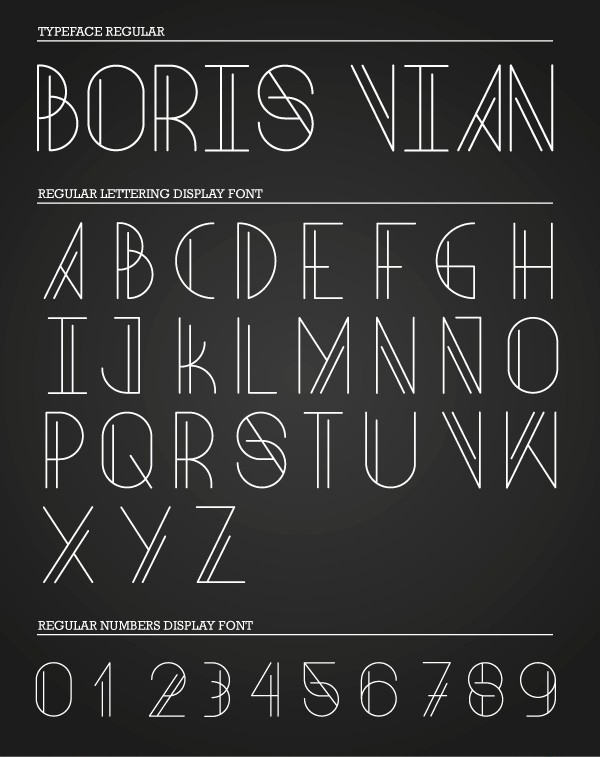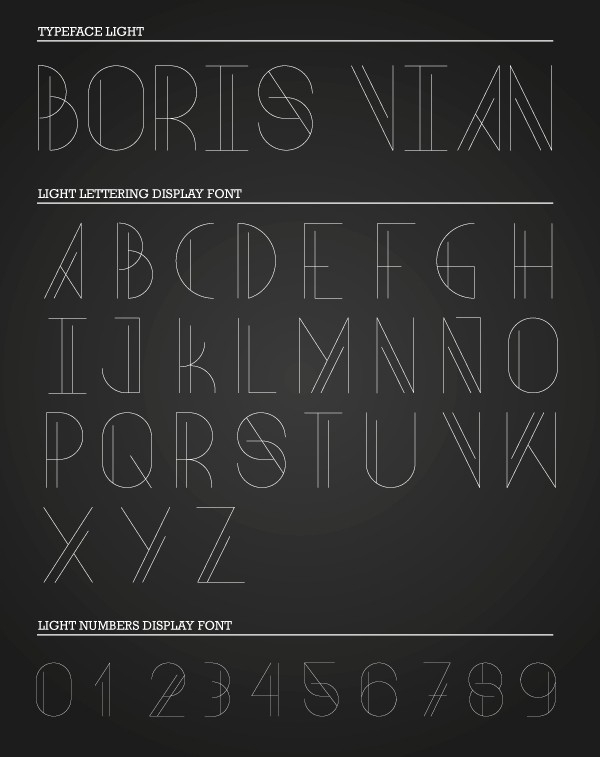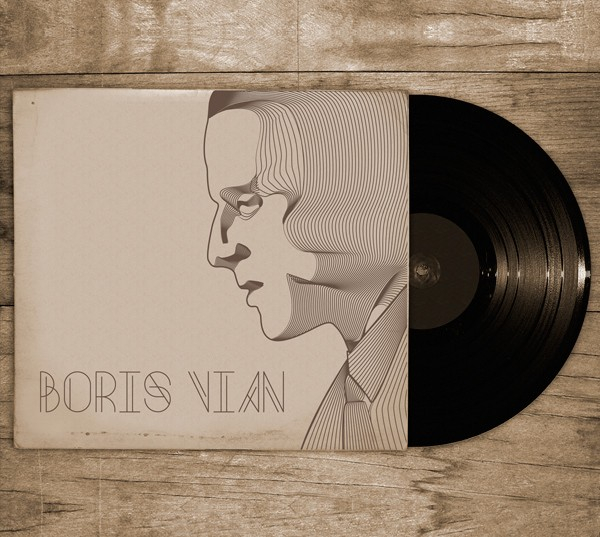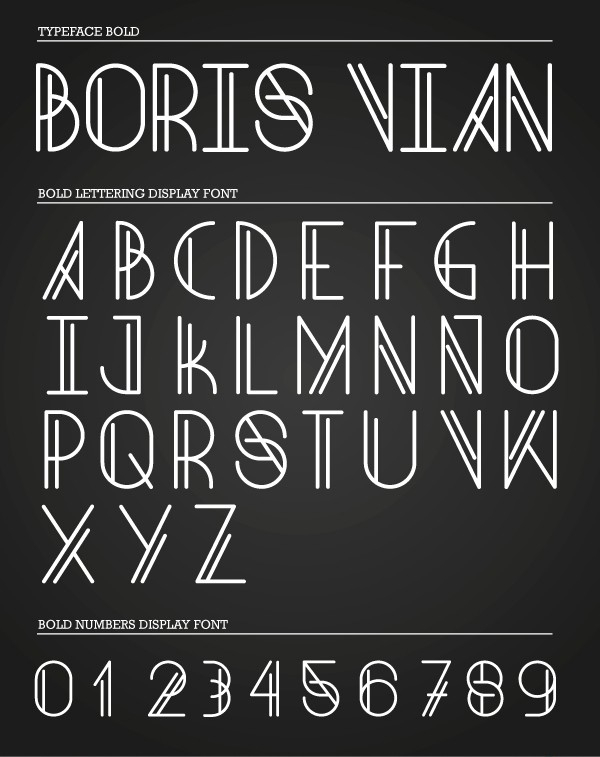
Boris Vian Font
A classic-modern typeface.
It becomes in 3 weights, Boris Light, Boris Regular and Boris Bold.
Designer: Rbngraphic
Publisher: Rbngraphic